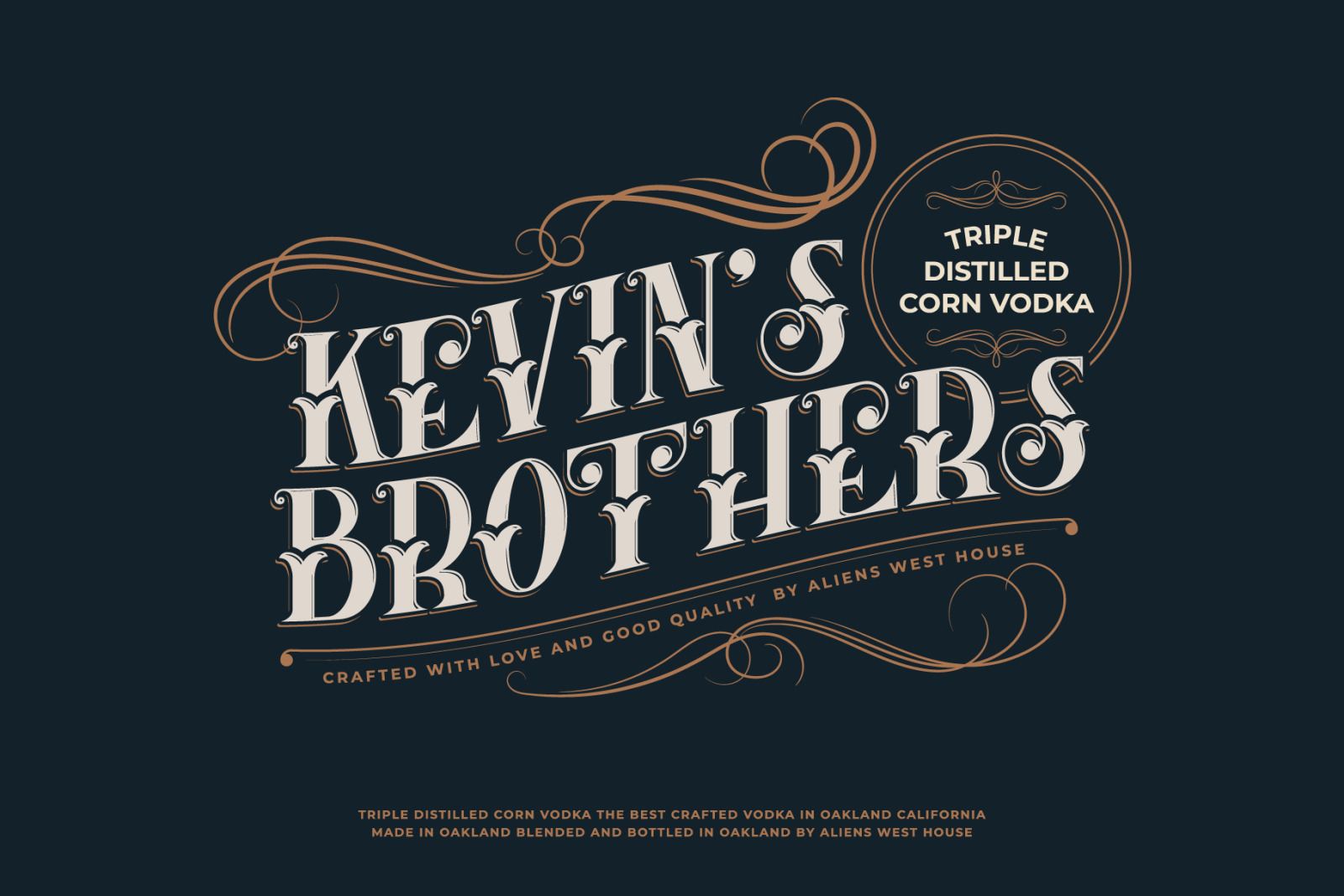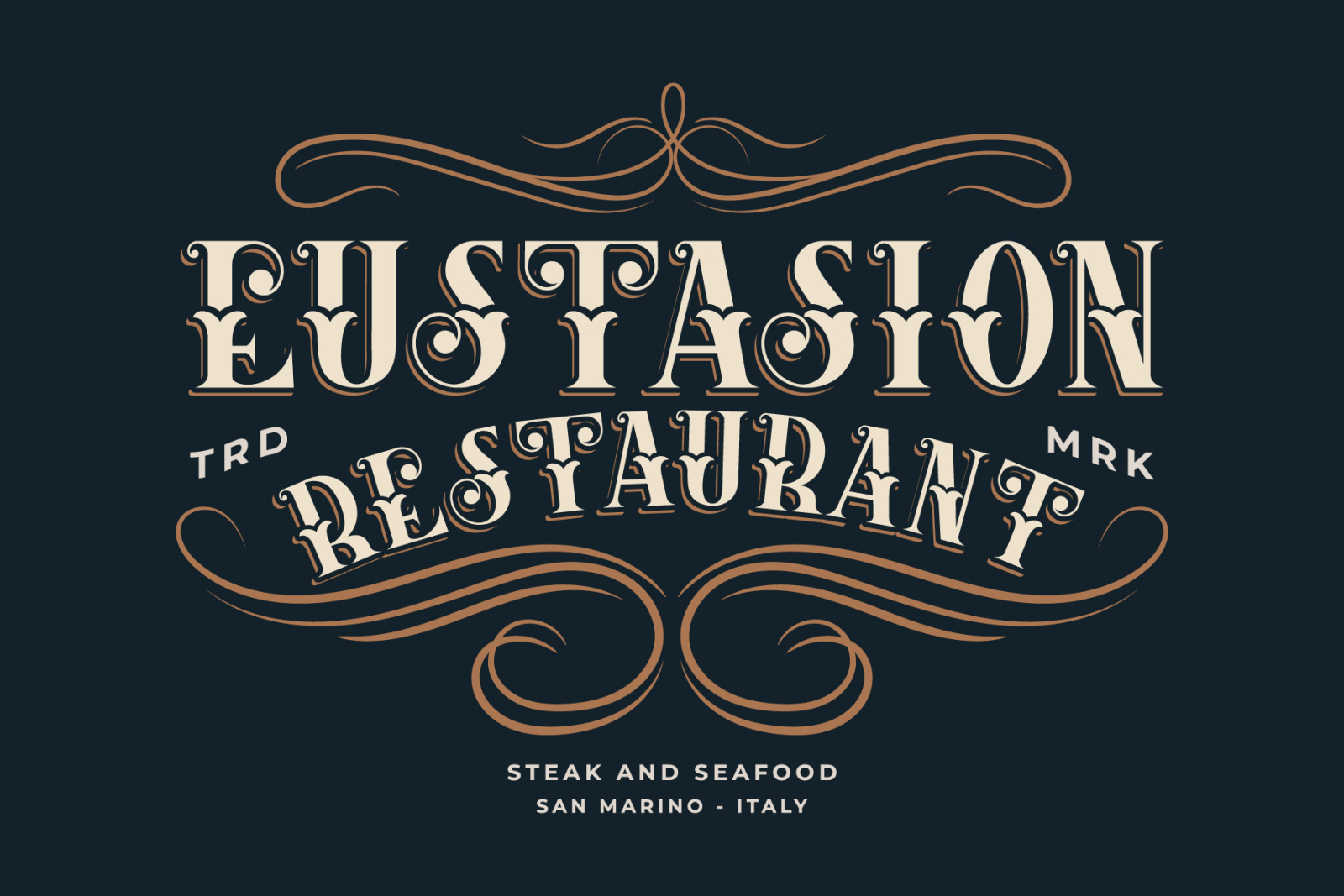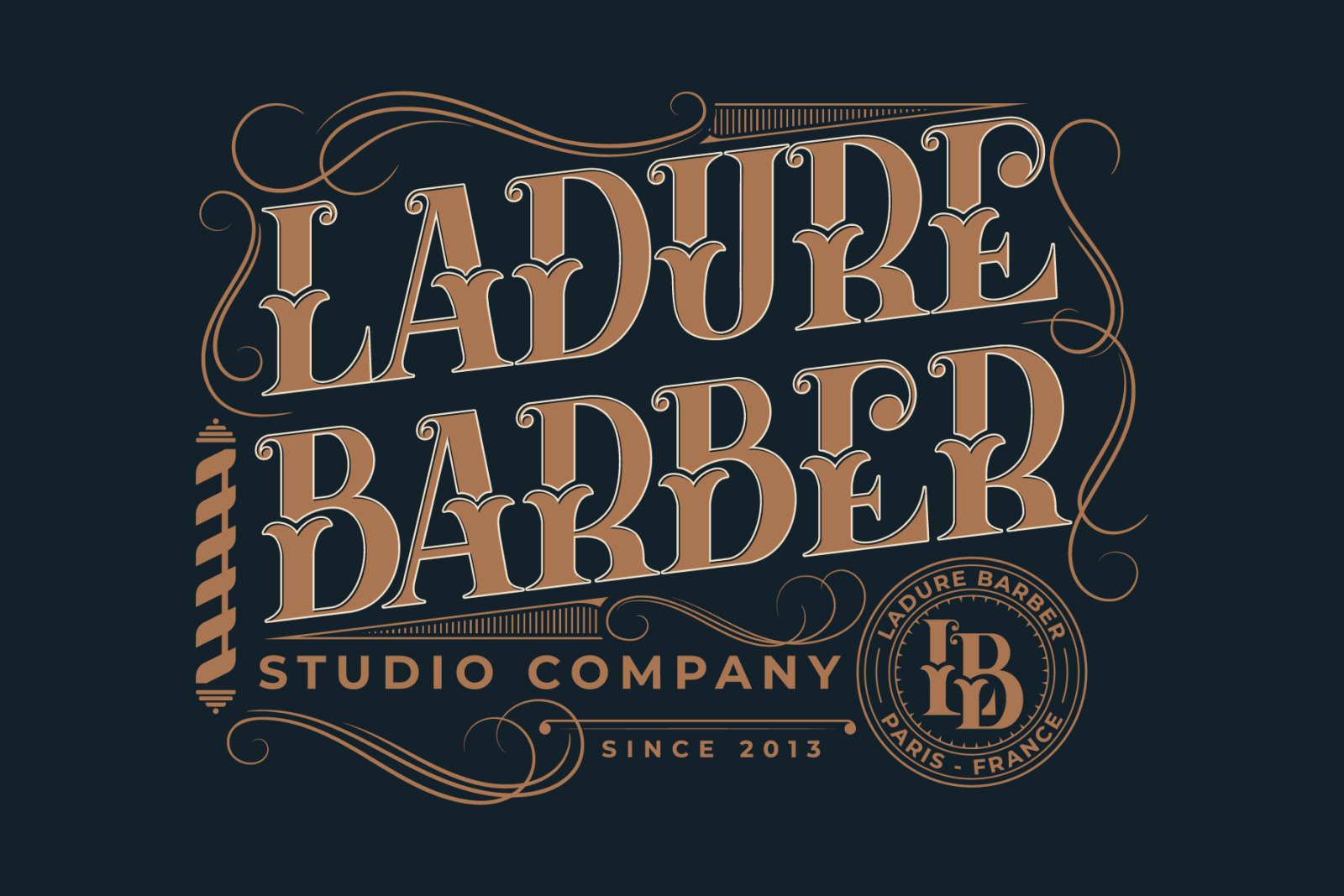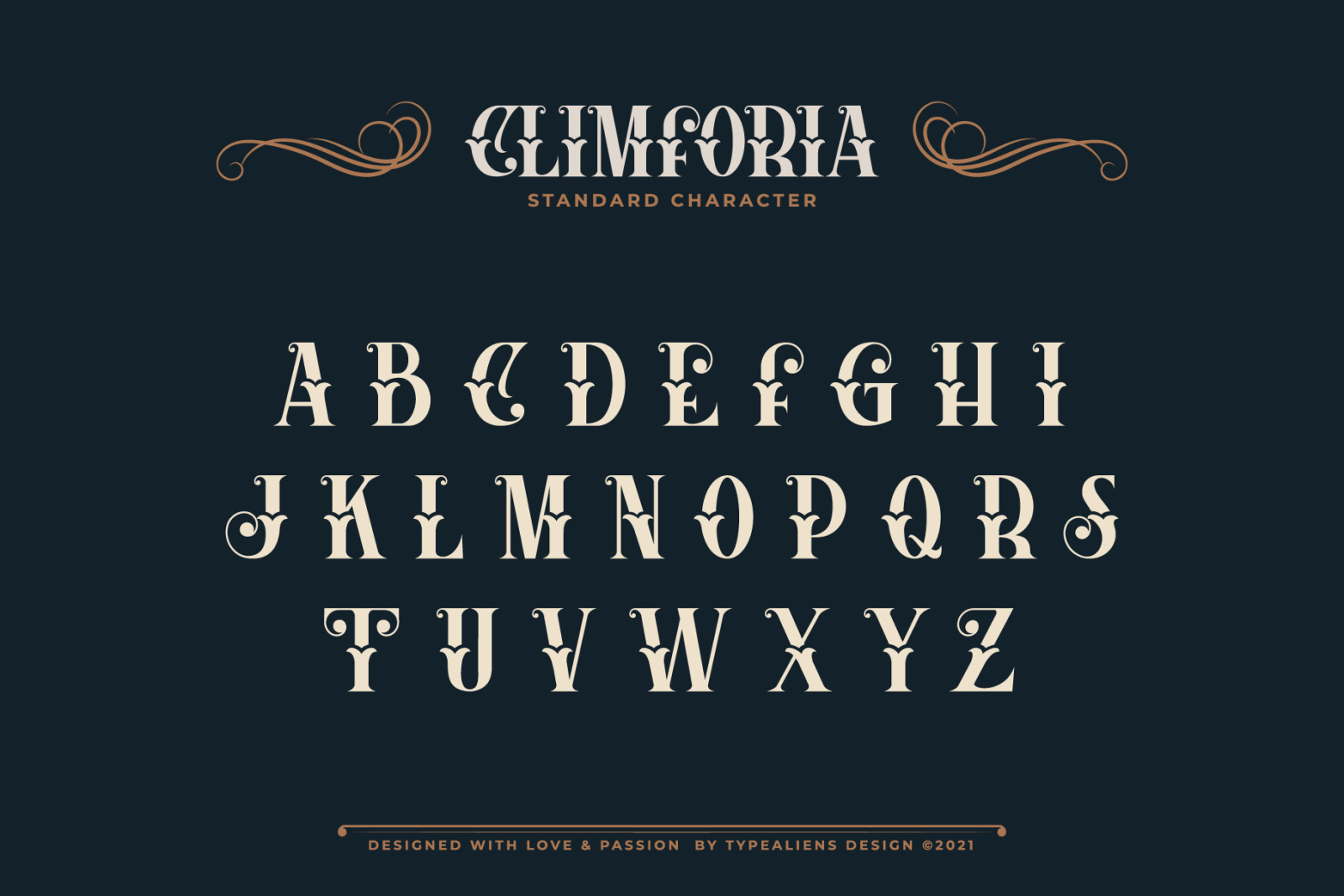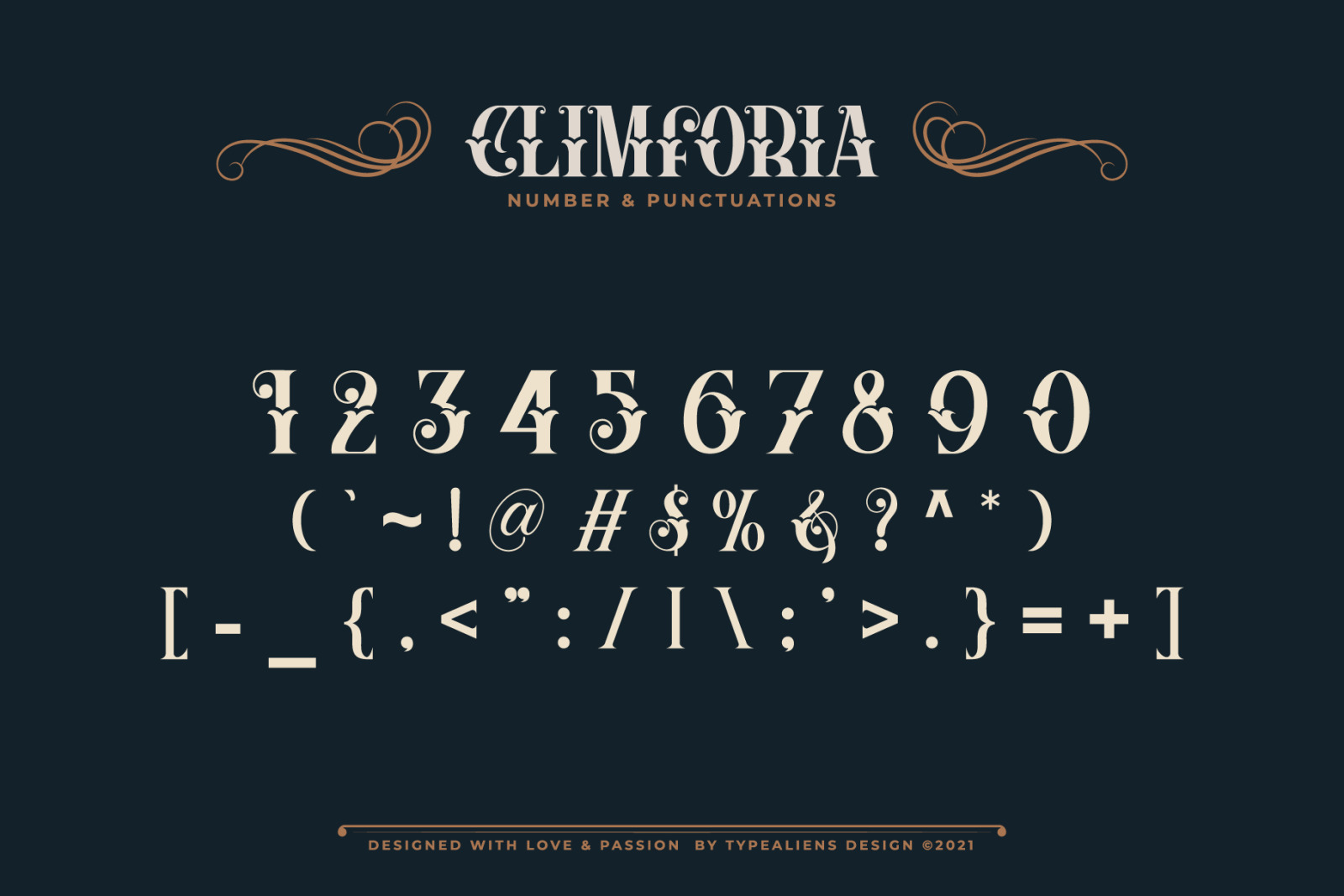
Climforia Font
CLIMFORIA is a font that has a serif base form, which was modified to make it a unique decorative font. Available in all caps but very attractive for unusual designs.